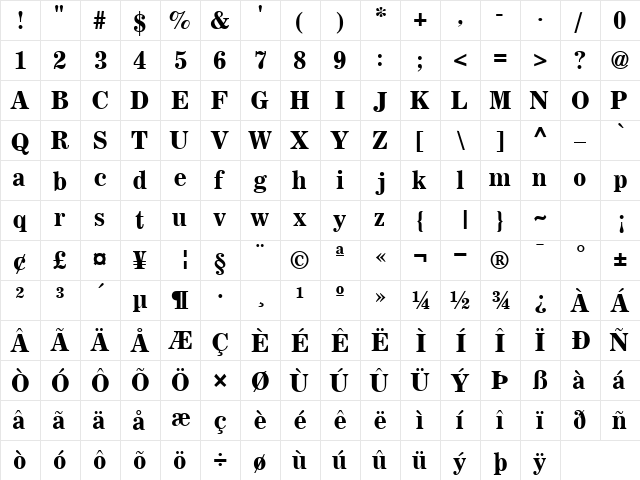
LockupSSK Bold
Design Context for LockupSSK Typeface
LockupSSK is a composed and adaptable typeface that performs quietly and consistently across a wide range of design contexts. The heavy weight commands attention and anchors typographic hierarchies.